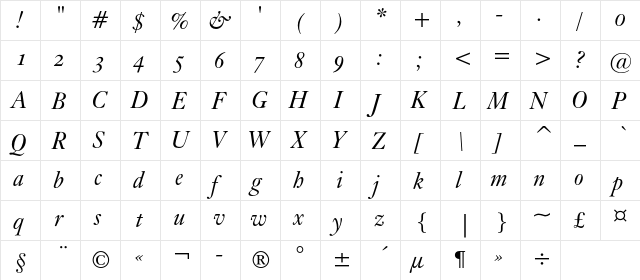
KisOSC BT Italic
Design Context for KisOSC BT Typeface
KisOSC BT is a composed and adaptable typeface that performs quietly and consistently across a wide range of design contexts. Its italic angle brings a sense of urgency and motion to the letterforms.
Pro Tip: Try KisOSC BT for annotation and caption copy alongside an upright companion — the contrast in angle creates a dynamic but ordered typographic system.